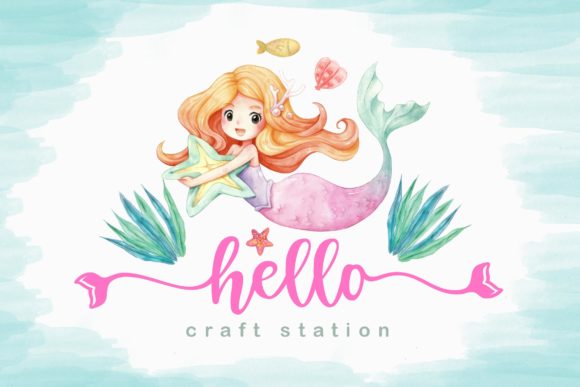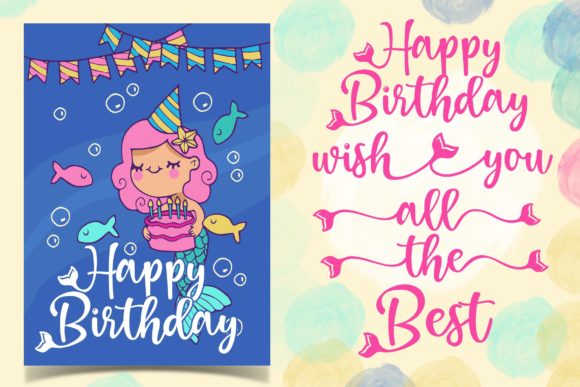
Mermaid Stories Font
db-ku.com - Script & Handwritten -- Mermaid Stories is a beautiful handwritten font. It features amazing mermaid’s swashes. Fall in love with its authentic feel and use it to create gorgeous logos, beautiful stationary art, eye-catching social media posts, and cute greeting cards.This font is PUA encoded which means you can access all of the great glyphs and swashes with ease! It also features a wealth of special features including alternate glyphs and ligatures.